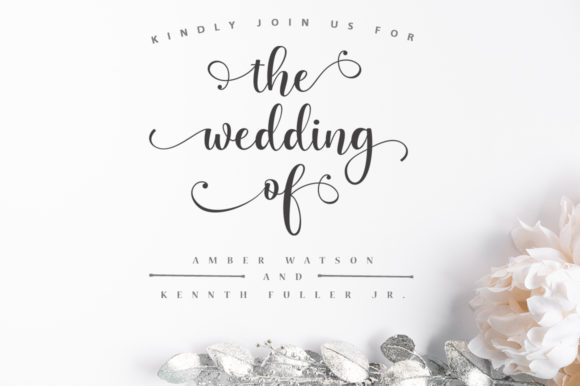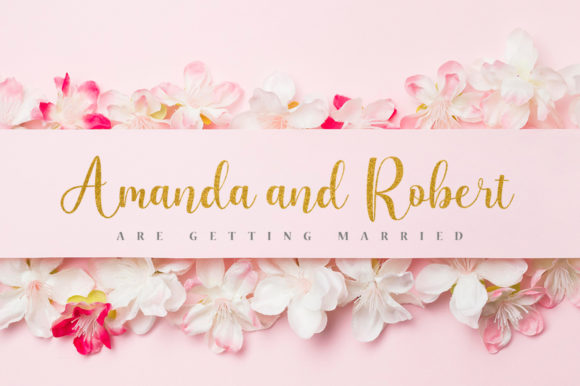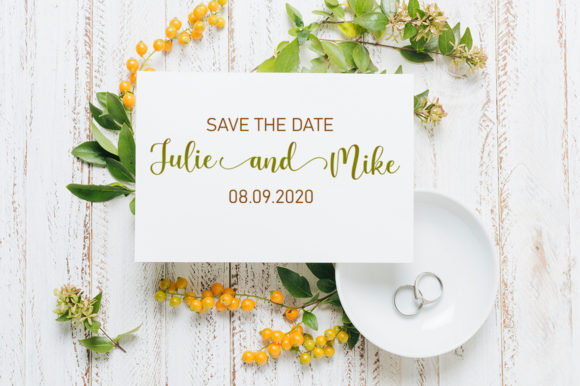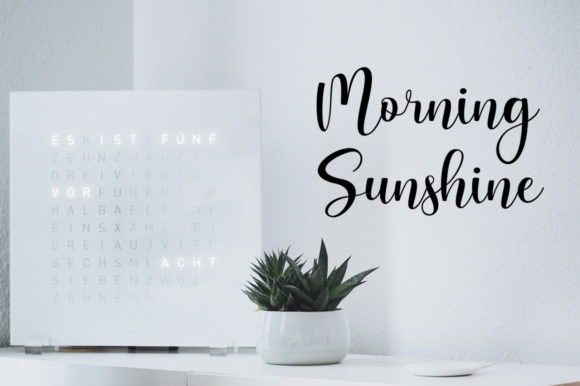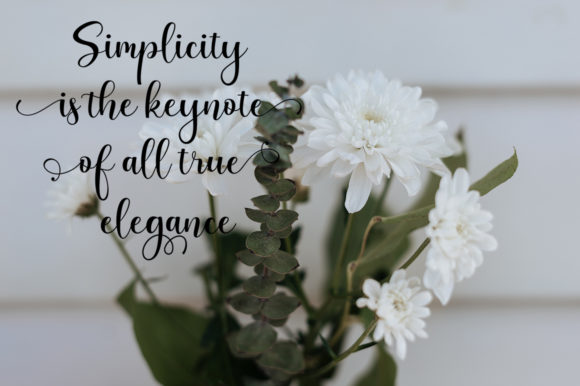
About Marigold Font
Marigold feels both charming and timeless. This font is PUA encoded which means you can access all of the glyphs and swashes with ease! It features a varying baseline, smooth lines, gorgeous glyphs and stunning alternates. Fall in love with its incredibly versatile style and use it to create gorgeous wedding invitations, beautiful stationary art, eye-catching social media posts, and much more!